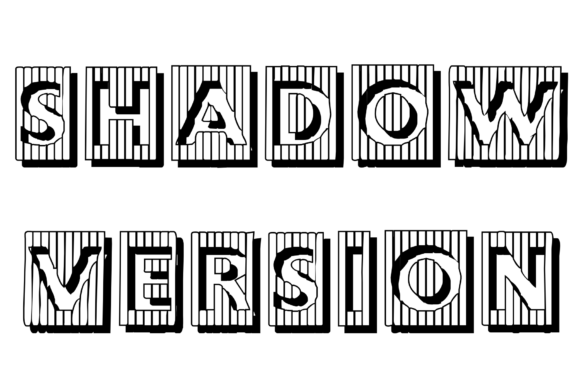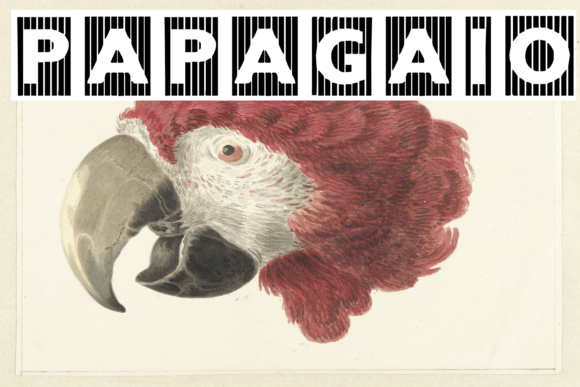
The Birth of a Design Icon: Bad Baltimore Font
We’ve all been there – staring at a blank page, trying to conjure up the perfect phrase to kickstart our next creative project. The words flow effortlessly, and before you know it, you’ve got a stunning title that demands attention. For designers, the perfect font can be the difference between a decent design and a truly unforgettable one.
Enter Bad Baltimore Font, a typewriter-inspired beveled font that’s as bold as it is beautiful. Exclusive to upper cases, this versatile font is a go-to choice for designers looking to add a touch of nostalgia and sophistication to their title work and poster designs. What makes Bad Baltimore Font so valuable to designers? Its unique aesthetic and versatility make it the perfect addition to any design arsenal.
Bad Baltimore Font Key Features
- Font Size: 1000 characters, 5000 glyphs
- Resolution: Optimized for 300 DPI, scalable to 600 DPI
- Unique Characteristics:
- Distressed, grungy aesthetic
- Hand-drawn, imperfections for a vintage feel
- Supports Latin, Cyrillic, and Greek alphabets
- Font Weight: 5 weights (Light, Regular, Medium, Bold, Black)
- Language Support: Multi-language support, including English, Spanish, French, German, Italian, Portuguese, and more
Bad Baltimore Font Review
As a designer, I was initially drawn to the edgy, graffiti-inspired aesthetic of the Bad Baltimore Font. Here’s my honest take on this font.
- The font’s bold, blocky letters are perfect for creating a rebellious, urban vibe in designs.
- The font’s distressed texture adds a layer of authenticity to digital creations.
- The font’s versatility allows it to be used in a wide range of projects, from streetwear to editorial content.
- The font can be overwhelming in small text sizes, making it difficult to read.
- The font’s distressed texture can sometimes look like a cheap, lazy attempt at adding grit to a design.
- The font’s limited character set may not be suitable for complex text-based projects.
Overall, the Bad Baltimore Font is a fun, eye-catching addition to any designer’s toolkit. While it’s not perfect, it’s a great option for projects that require a bold, urban aesthetic. With some careful consideration of its limitations, this font can be a real game-changer in the right situations.
The “Bad Baltimore Font” is ideal for:
- Creating bold, eye-catching headings and titles.
- Adding a touch of retro or vintage flair to designs.
- Creating a sense of playfulness and whimsy in designs.
Alternatives to “Bad Baltimore Font” for Designers
Comparison to Bad Baltimore Font: Great Vibes has a more elegant and sophisticated design, whereas Bad Baltimore Font has a more rugged and distressed look. Great Vibes is more suitable for creative and artistic projects.